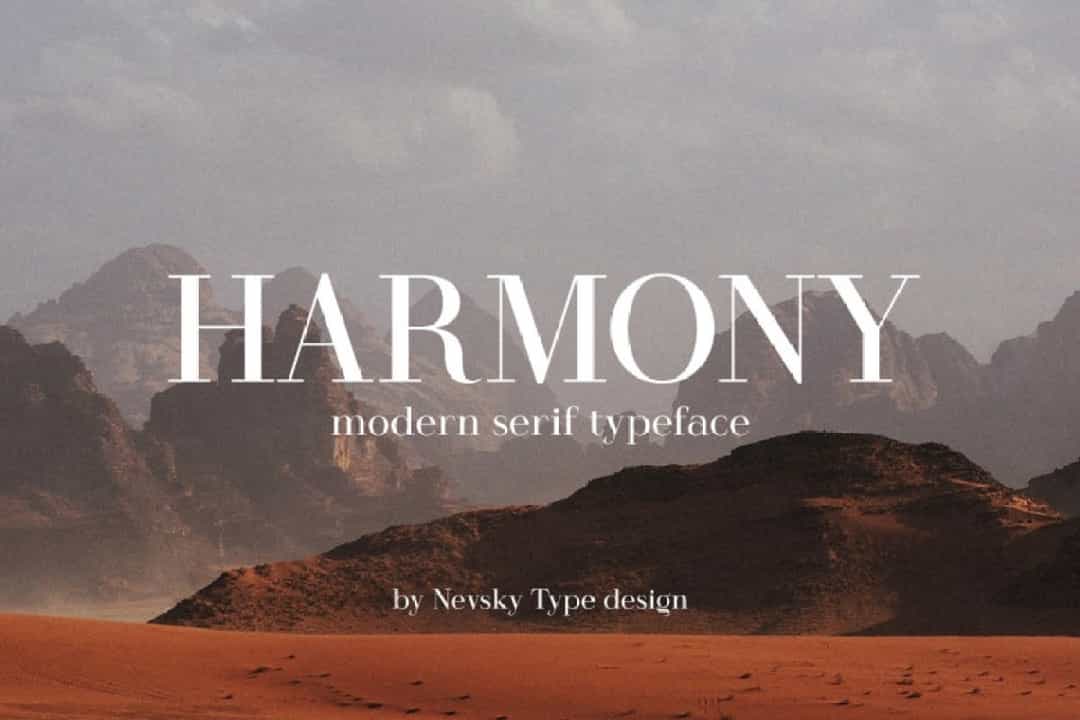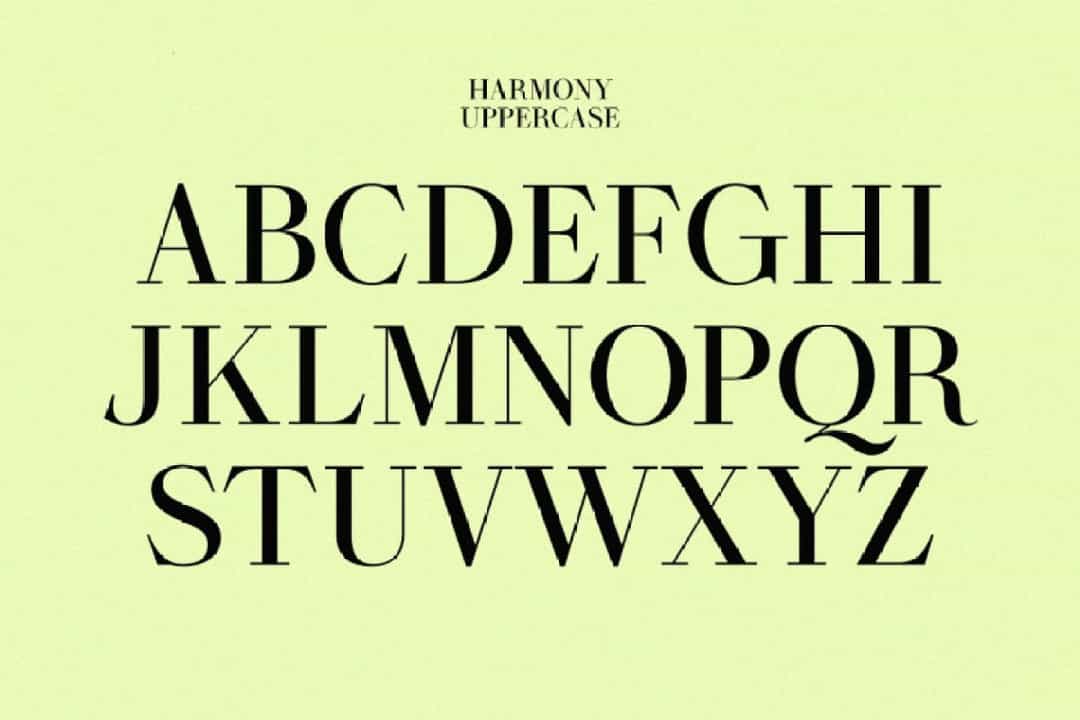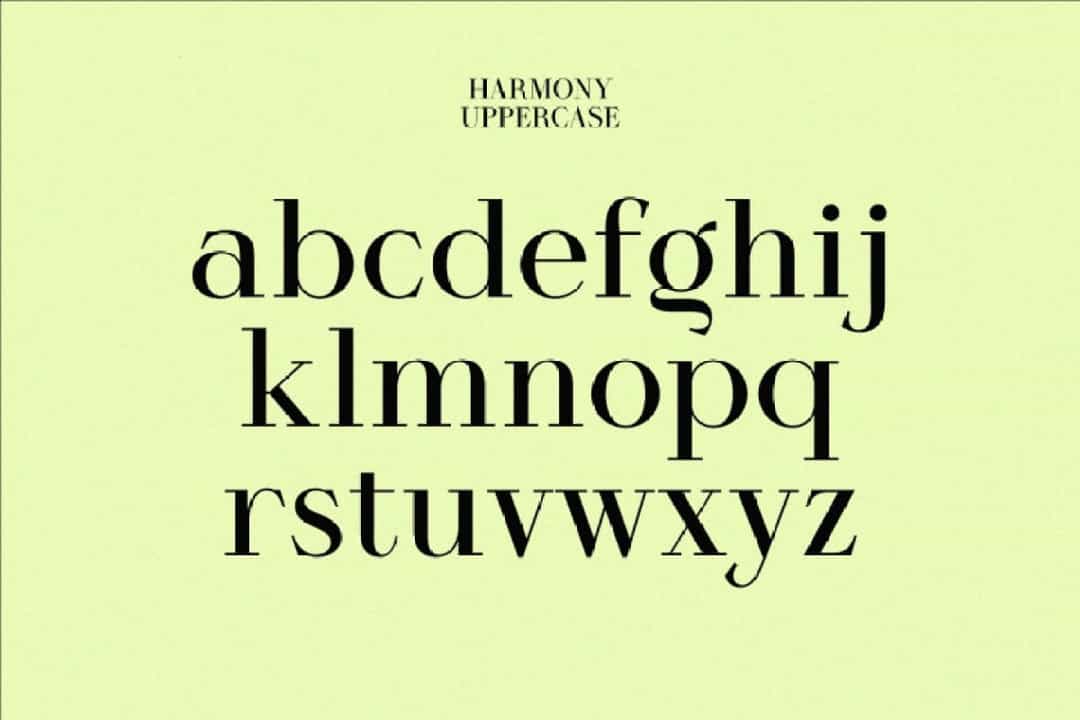
HARMONY font is an elegant modern serif typeface ideal for many projects such as invitations, postcards advertising, book blogs, websites branding logos magazines fashion photography etc.